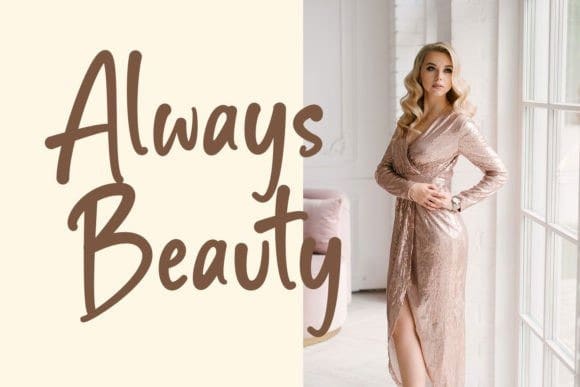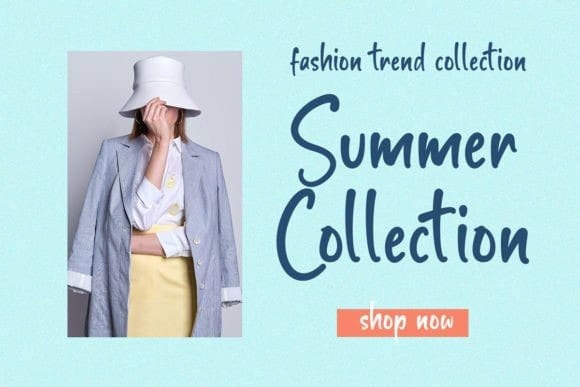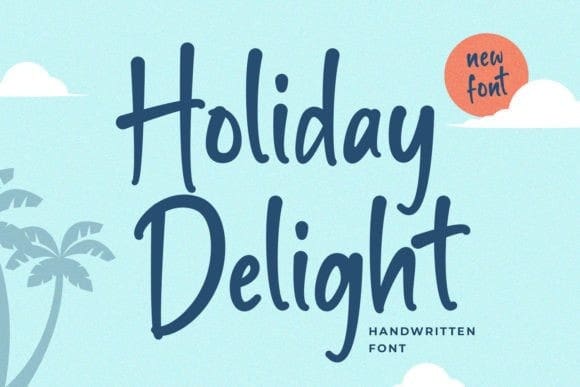
Holiday Delight Font
Holiday Delight Font looks modern, stylish, and easy to use. This font is suitable for logos, packaging designs, posters, business cards, covers, broadcasts, quotes, books, etc. Take your business go to the next level with HolidayDelight.